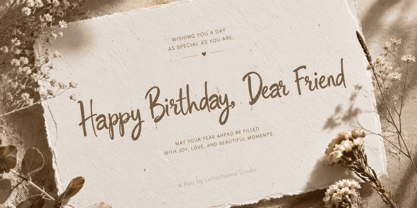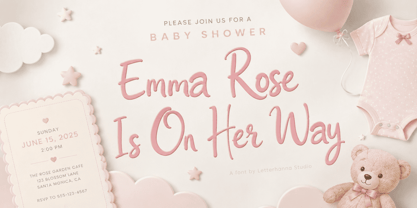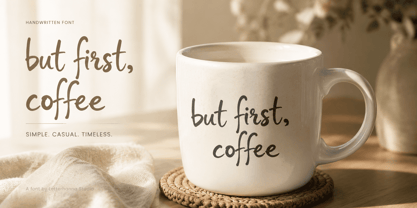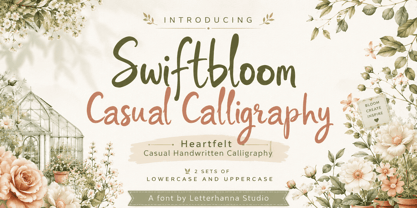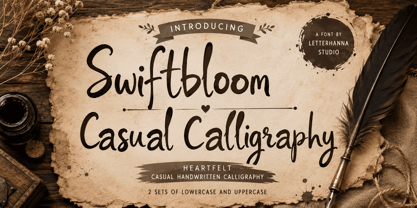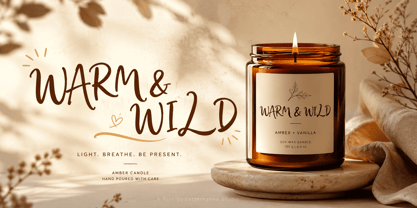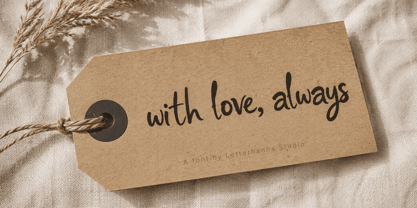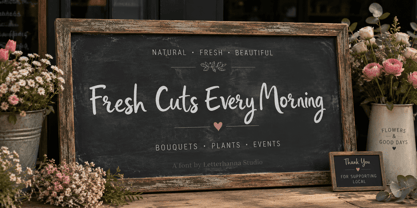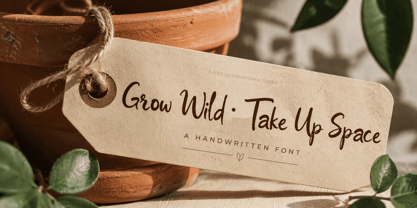
Swiftbloom
A família de fontes Swiftbloom foi desenhada por Rinaldo Hasibuan e publicada pela Letterhanna Studio. Swiftbloom contém 1 estilos. Saiba mais sobre esta família
Swiftbloom is a casual handwritten script with a lively, organic character. The letterforms display natural variation in stroke weight — thick downstrokes transitioning into thin upstrokes — mimicking real pen-on-paper movement. Uppercase letters feature expressive, sweeping entries and exits, while lowercase letters maintain comfortable readability with gentle curves. The baseline wanders slightly, adding authenticity and warmth. Overall, it balances legibility with personality, avoiding the stiffness of formal calligraphy.
Swiftbloom was born from a simple observation: most handwritten fonts force a choice between speed and beauty. Either they feel rushed and sloppy, or they feel over-polished and stiff — losing the soul of genuine handwriting. The goal was to find the sweet spot in between. Hours were spent studying how the hand naturally moves when writing with confidence — the way a stroke launches forward before curving gently back, the way letters lean into each other like old friends mid-conversation.
The result is Swiftbloom: a casual handwritten script that feels like it was written in one confident, uninterrupted motion. Every letterform carries natural weight variation — thick where the pen presses down, thin where it lifts — giving each word a rhythm that feels alive. The slight forward lean adds momentum, while the open curves keep everything warm and readable.
The name says it all. Swift — because every stroke moves with purpose and energy. Bloom — because the letters open up naturally, like something growing without being forced.
Swiftbloom is built for creators who want their designs to feel human. It's the font for the wedding invitation that makes guests smile before they even read the date. The product label that feels handpicked. The quote poster that stops the scroll.
Whether you're designing for print, branding, social media, or digital products — Swiftbloom brings that rare quality: warmth you can feel through a screen.